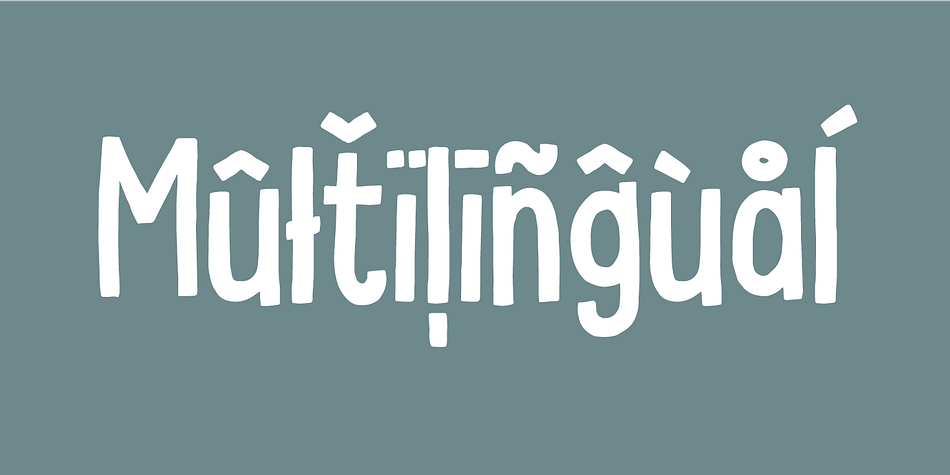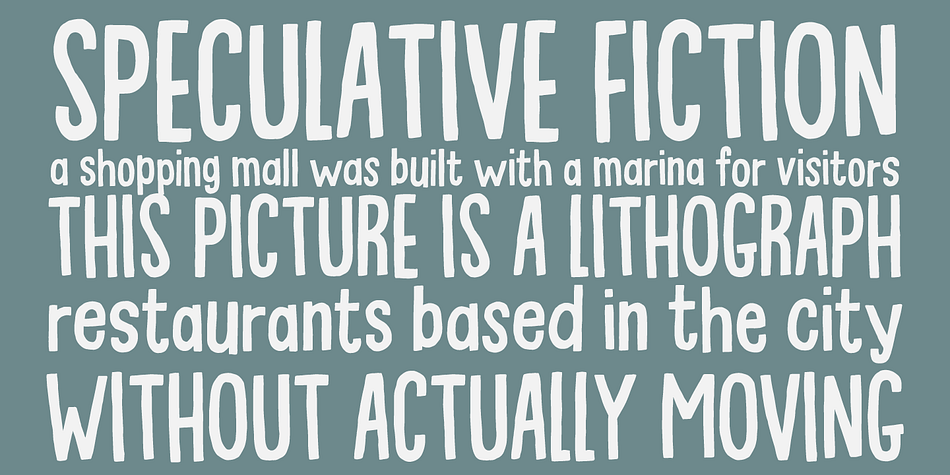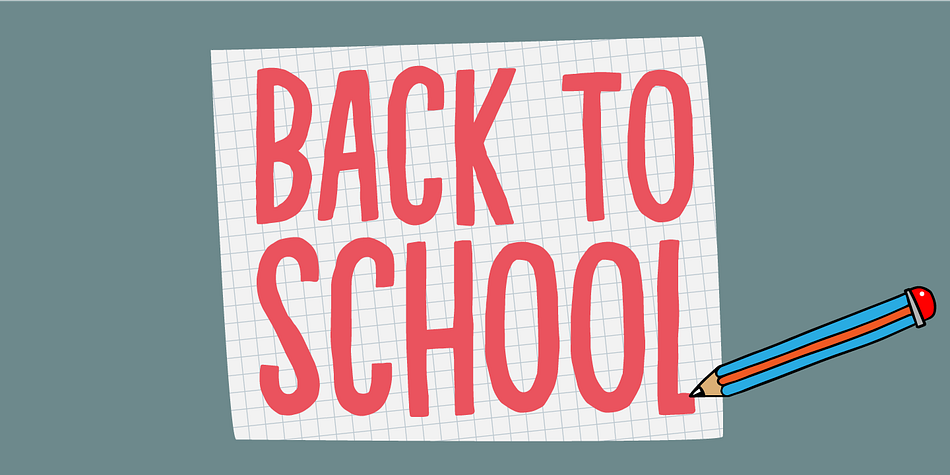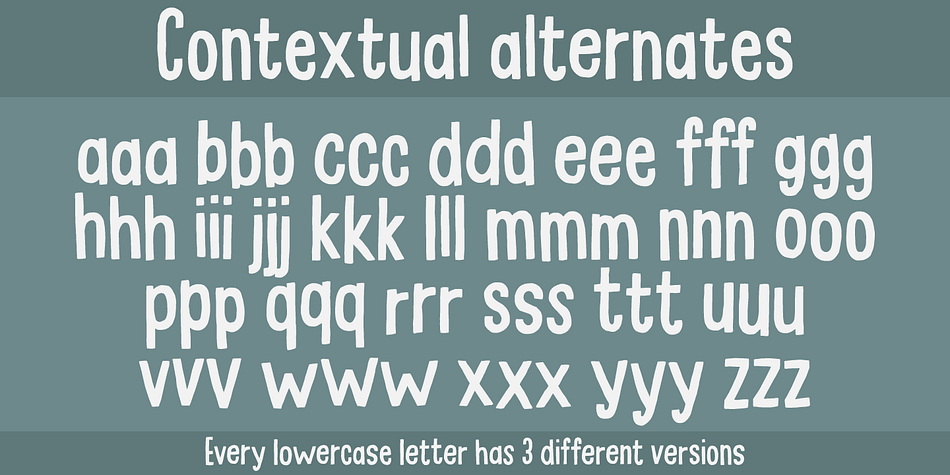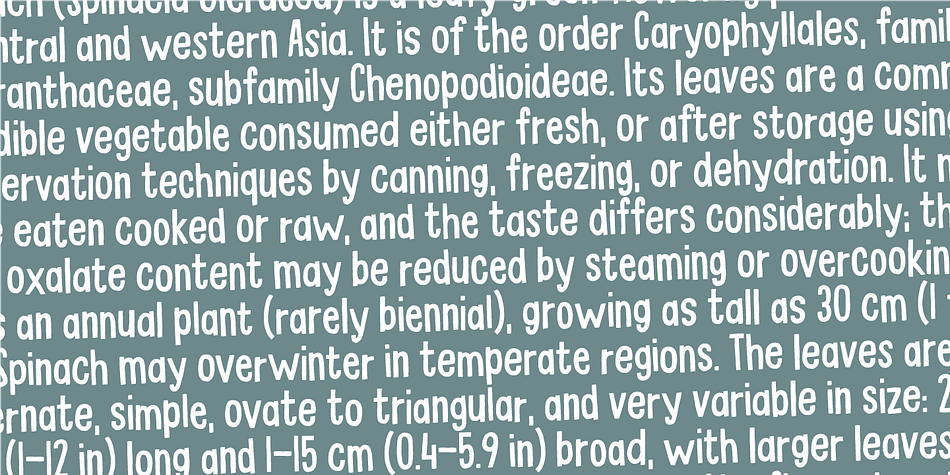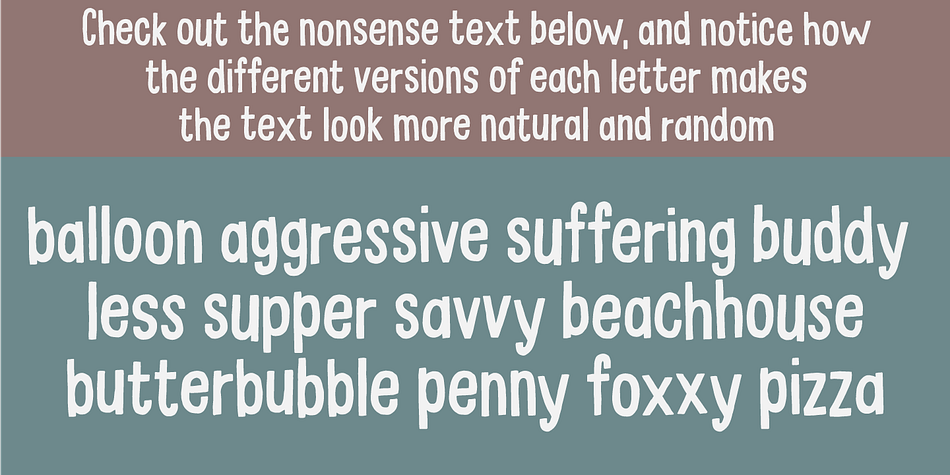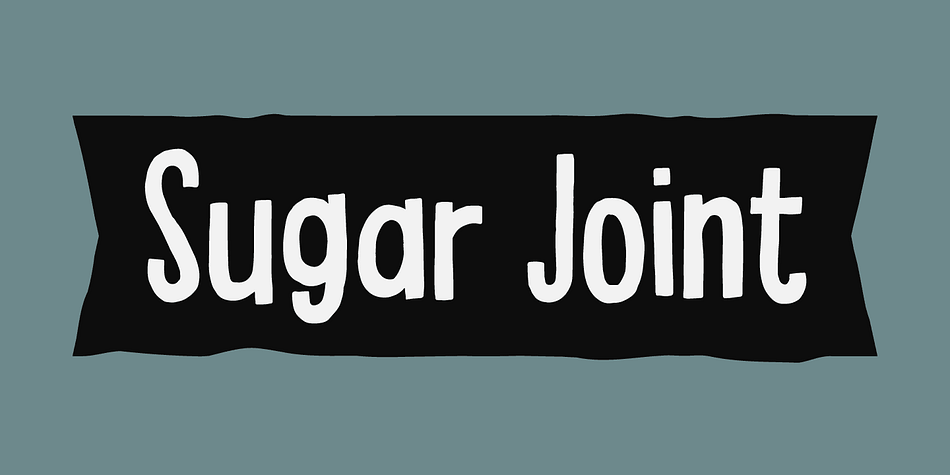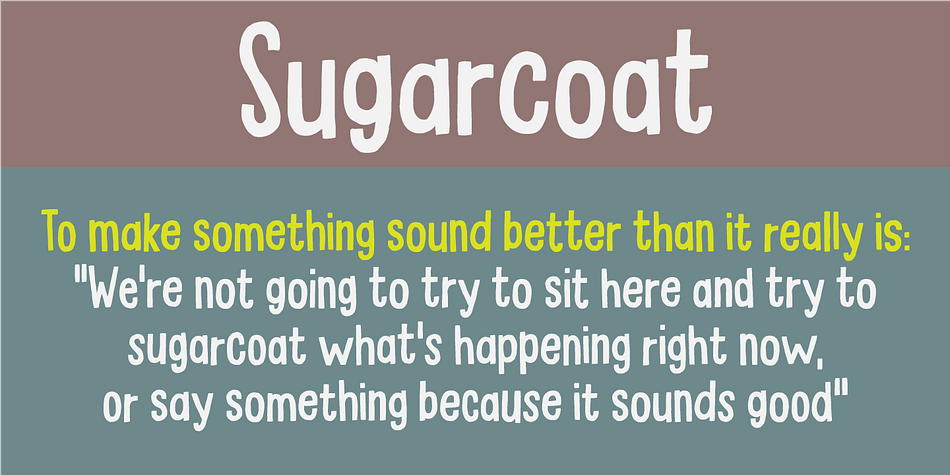
Designed by Jakob Fischer, Sugar Joint is a hand display, hand drawn and sans serif font published by Pizzadude.dk.
Sugar Joint is a simple and legible sans serif font. It has a loose and easy look, which makes it very suitable for children’s books or toys, candy labels, cereal, or perhaps even labels for organic products. It’s 100% handmade!